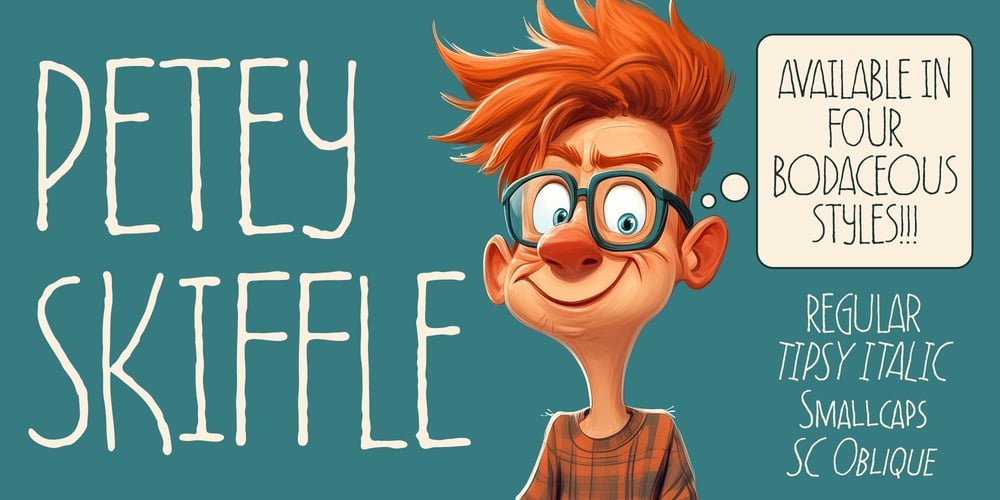
Petey Skiffle Font Family was designed by Brian J. Bonislawsky, Dave Cohen and published by One Eyed Squid. Petey Skiffle contains 4 styles and family package options. He’s a fine, upstanding lad that Petey Skiffle. Always casual, polite and non-confrontational unless he’s in an assertive italic kind of mood. If everyone was riffing on Skiffle, the world would be a better place!(the Petey Skiffle family contains an extended Latin character set with added Vietnamese support.)